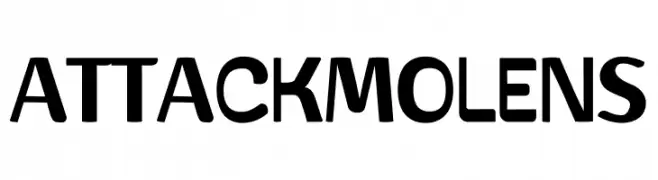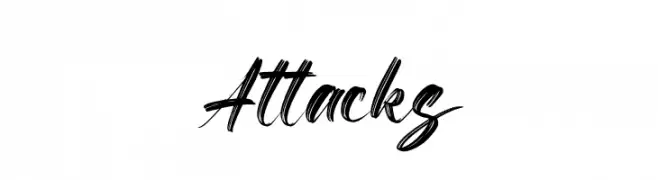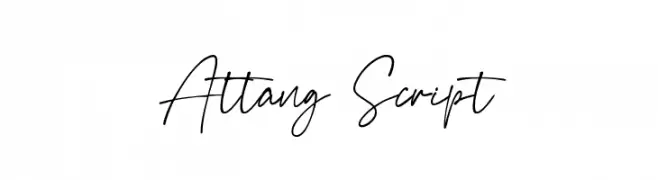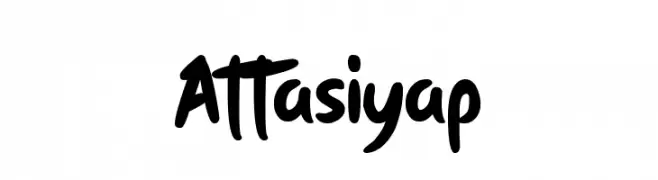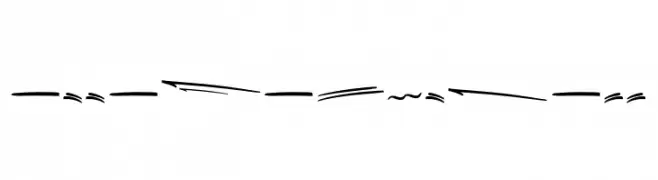
• ATTACK MOLENS
A bold, modern font with rounded edges and a friendly appearance.
• Attacks
A bold, expressive script font with fluid, connected strokes.
• Attahost
A modern, elegant script font with flowing, connected strokes.
• Attaira
An elegant, flowing script font with a natural handwriting style.
• Attang Script
A casual, handwritten script font with a flowing, natural style.
• Attasey Italic
A flowing, cursive italic font with elegant, connected strokes.
• Attasiyap
A bold, playful handwritten font with a casual and friendly style.
• Attaya
A playful, casual handwritten font with smooth, flowing lines and varying stroke widths.
• Attaya Extrass
A whimsical collection of hand-drawn decorative lines and symbols.
• Attazack
A playful handwritten font with rounded, consistent strokes and a casual style.